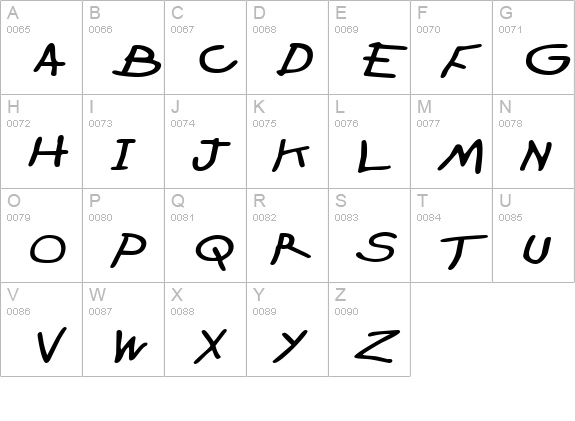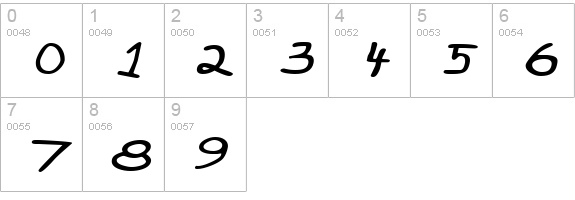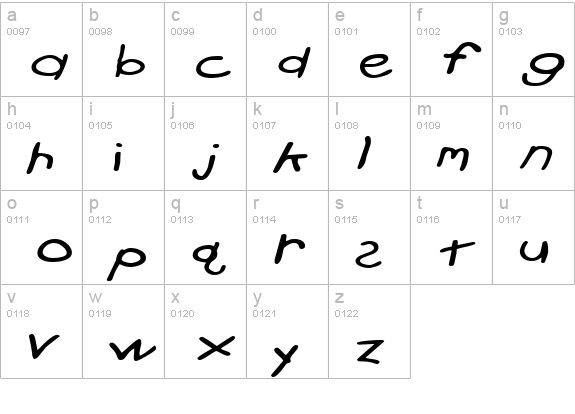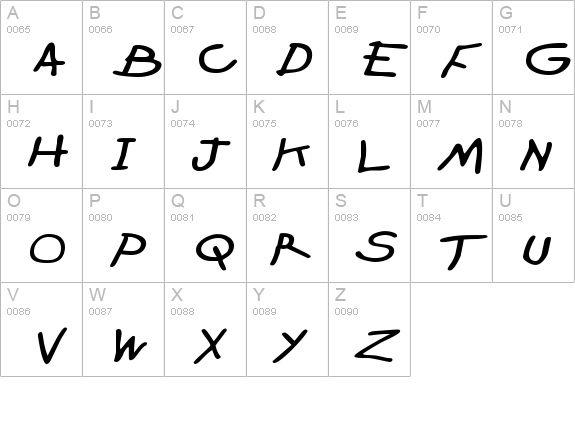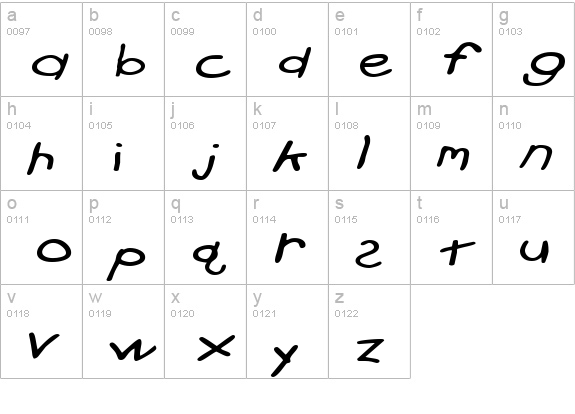
CrayonExtended Slanted Font Details
The CrayonExtended Slanted font is a whimsical and playful typeface that exudes creativity and fun. With its slanted design, this font gives a dynamic and energetic feel to any project it is used in. The hand-drawn style of the letters adds a unique touch, making it perfect for designs that require a touch of charm and character. Best of all, the CrayonExtended Slanted font is available for free download at FontsMarket.com. You can easily access this delightful font and add a touch of whimsy to your projects without any cost. Whether you're working on a children's book, a greeting card, or a poster, the CrayonExtended Slanted font is sure to bring a smile to your audience's face. Download it now and let your creativity shine!